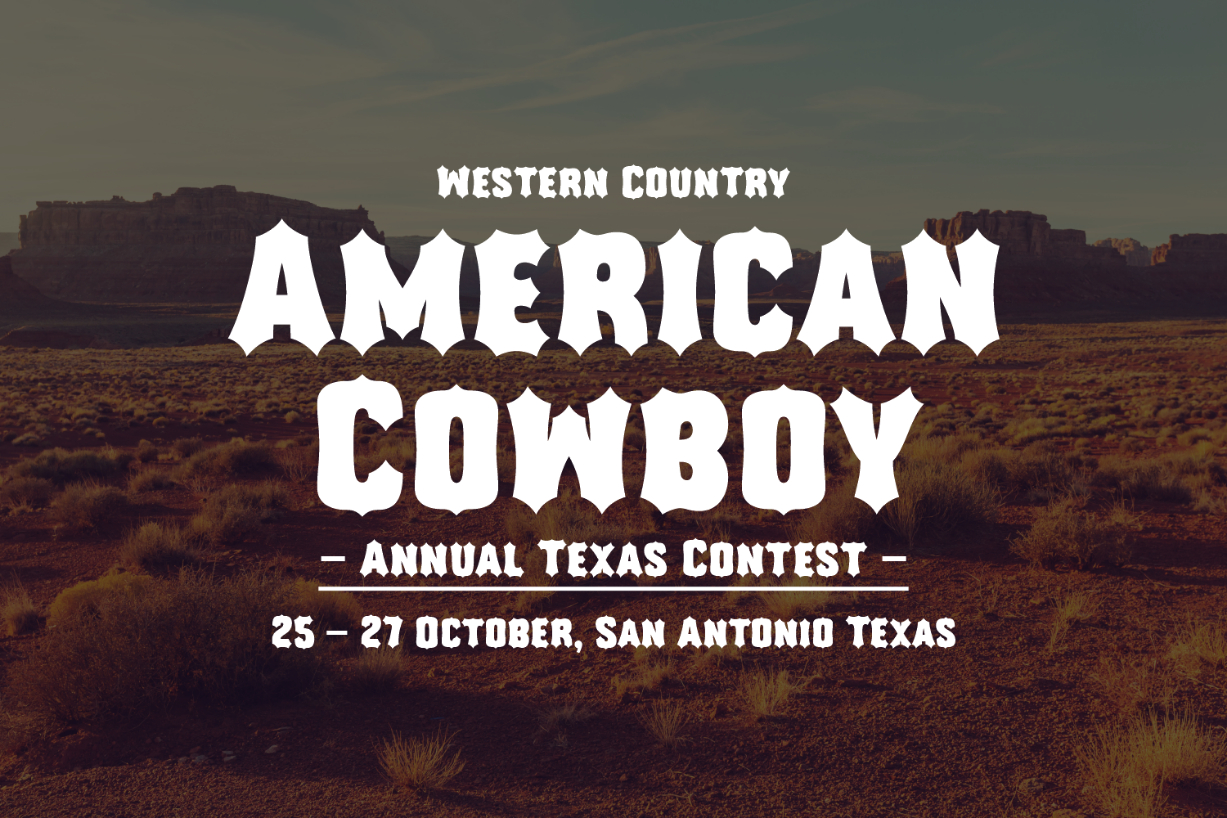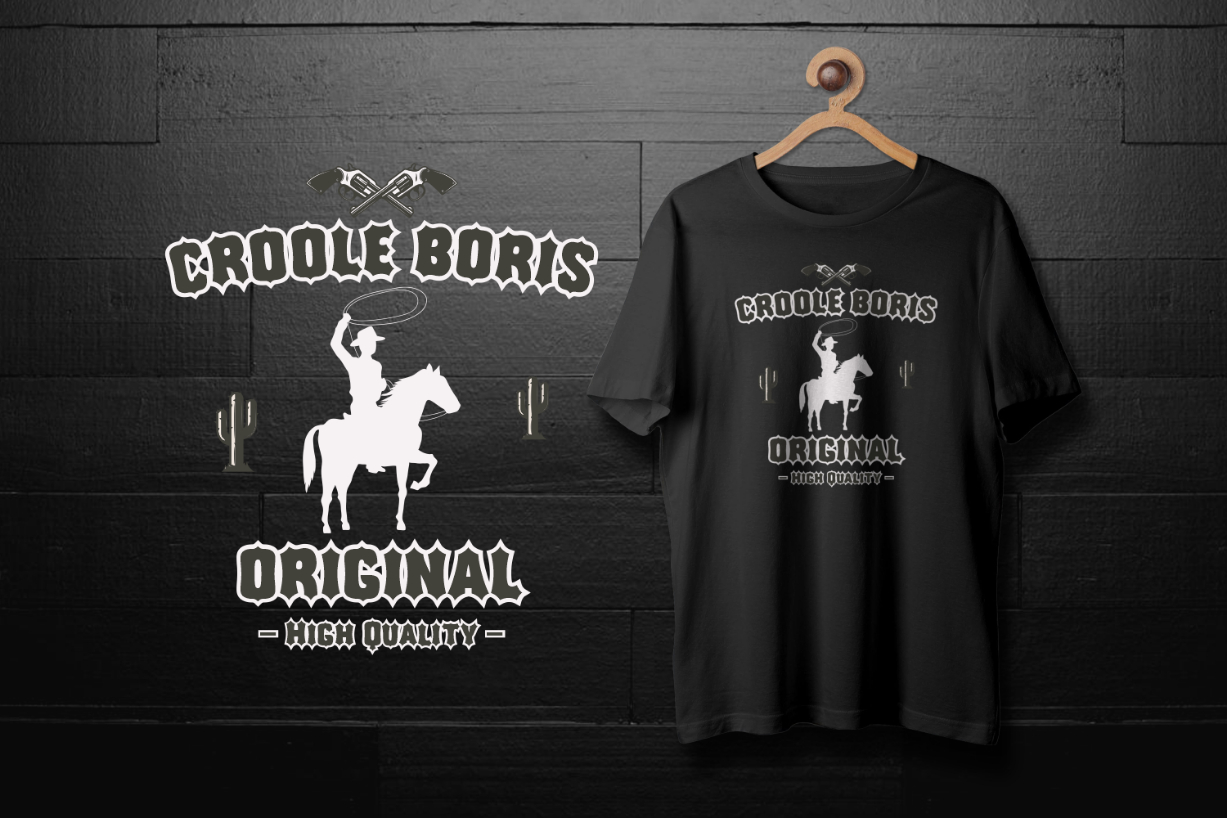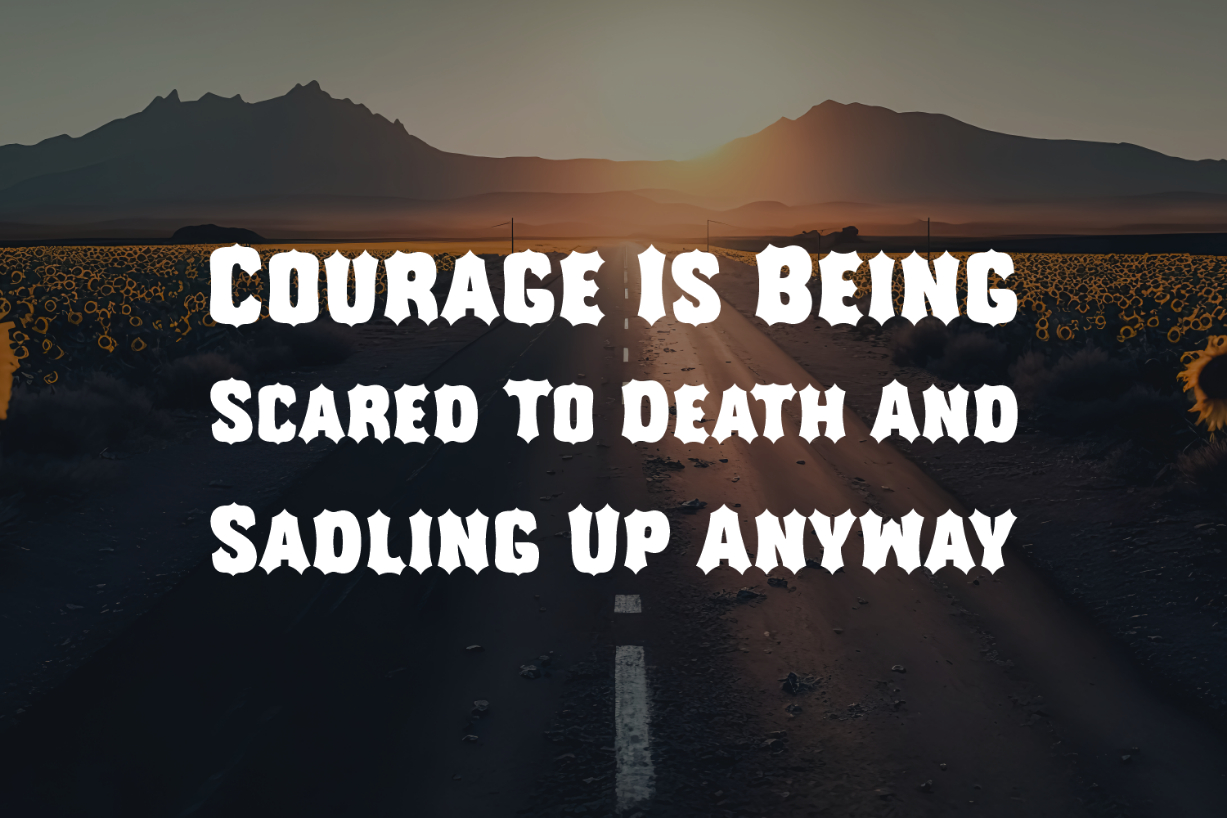
Croole Boris Font
About Croole Boris Font
Croole Boris is a thick and curvy blackletter font. Stand out from the crowd by using this captivating font to create bold and eye-catching typography! It is the perfect choice for headers, headlines, titles, book covers, advertisements, branding projects, t-shirts, signage, and more.